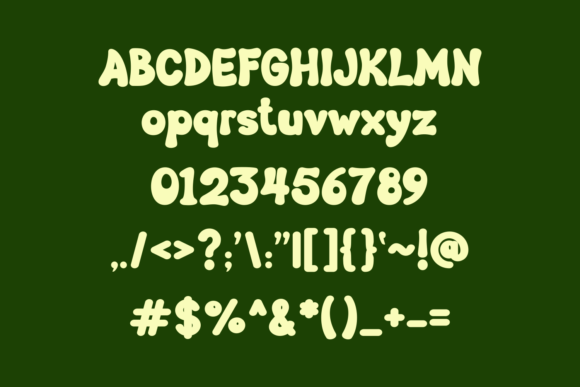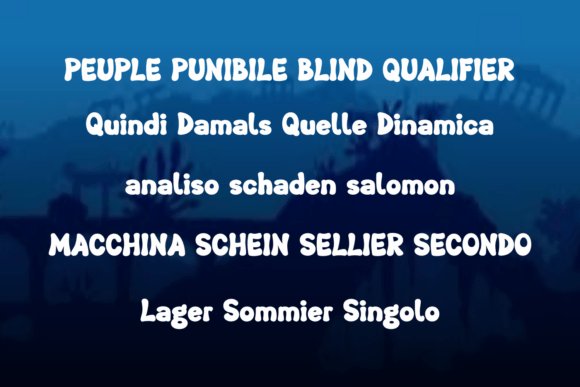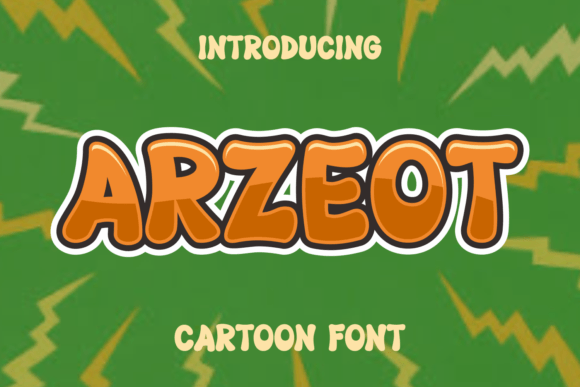
Introducing Arzeot Font: Elevate Your Designs with a Cool and Modern Display Font
In the world of design, typography plays a crucial role in conveying messages, expressing creativity, and capturing the audience’s attention. A font can make or break a design, and that’s where Arzeot Font comes in – a cool and modern display font that’s about to revolutionize your font library. In this article, we’ll dive into the world of Arzeot Font, exploring its features, benefits, and uses, and why it’s an incredible asset for designers and crafters.
What is Arzeot Font?
Arzeot Font is a modern display font designed to make a statement. Its sleek lines, elegant curves, and unique style make it perfect for a wide range of design projects, from branding and advertising to packaging and digital media. Whether you’re a professional designer or a crafty enthusiast, Arzeot Font is an excellent addition to your font collection.
Key Features of Arzeot Font
• Cool and Modern Design: Arzeot Font boasts a fresh and contemporary look that’s sure to grab attention.
• Versatile: This font is suitable for various design projects, including logos, headlines, posters, and more.
• Elegant and Sophisticated: Arzeot Font exudes elegance and sophistication, making it perfect for high-end brands and designs.
• Easy to Read: Despite its modern and stylized design, Arzeot Font remains highly legible, ensuring your message gets across clearly.
Benefits of Using Arzeot Font
So, why should you choose Arzeot Font for your design projects? Here are some benefits that make it an attractive option:
• Stand Out from the Crowd: With Arzeot Font, you can create unique and eye-catching designs that set you apart from the competition.
• Enhance Brand Identity: This font’s modern and elegant design makes it perfect for branding and rebranding projects, helping you establish a strong visual identity.
• Boost Creativity: Arzeot Font’s versatility and style inspire creativity, allowing you to experiment with different design concepts and ideas.
• Save Time: With Arzeot Font, you can quickly create professional-looking designs without spending hours on typography.
Who Can Benefit from Arzeot Font?
Arzeot Font is an excellent choice for a wide range of designers and crafters, including:
• Graphic Designers: Add a modern touch to your branding, advertising, and marketing materials.
• Logotype Designers: Create stunning logos and wordmarks that make a lasting impression.
• Digital Artists: Use Arzeot Font to add a professional and artistic flair to your digital art.
• Crafters and Makers: Elevate your craft projects, such as handmade cards, invitations, and packaging.
How to Use Arzeot Font
Using Arzeot Font is easy and straightforward. Here are some tips to get you started:
• Pair it with Other Fonts: Combine Arzeot Font with complementary fonts to create visually appealing typography.
• Experiment with Colors: Try different color schemes and gradients to make your designs pop.
• Play with Sizes: Use Arzeot Font in various sizes to create visual hierarchy and emphasis.
Font Name Arzeot Font
Author lelevien
In conclusion, Arzeot Font is a cool and modern display font that’s a must-have for designers and crafters. Its versatility, elegance, and sophistication make it perfect for a wide range of design projects. Whether you’re looking to elevate your brand identity, boost creativity, or simply create stunning designs, Arzeot Font is an incredible asset to your font library. So, what are you waiting for? Get creative with Arzeot Font today!